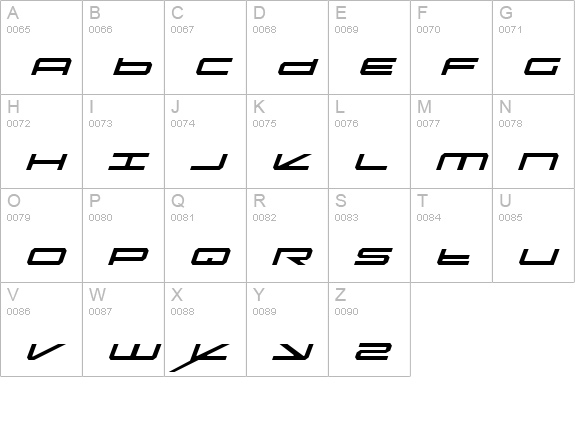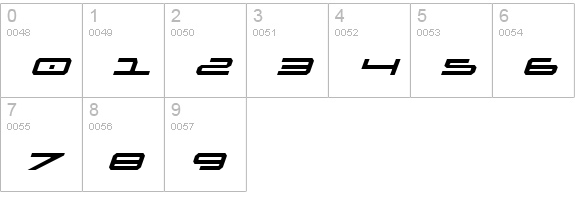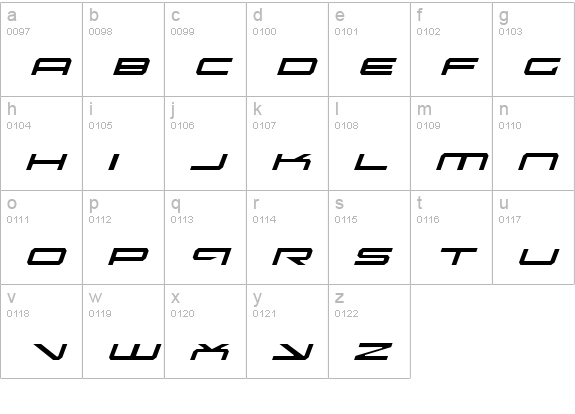
Oramac Light Italic is a refined, elegant, italic variant in the Oramac typeface family \xE2\x80\x94 well suited to elegant body text, refined sub-headings, and luxury branding.
Oramac Light Italic font is a sleek and elegant typeface that adds a touch of sophistication to any design project. With its delicate curves and subtle slant, this font exudes a sense of grace and refinement. Perfect for use in titles, headings, or body text, Oramac Light Italic offers a harmonious balance between readability and style. The best part? Oramac Light Italic font is available for free download at FontsMarket.com. Simply visit the website to access this beautiful typeface and elevate your designs with its timeless appeal. Whether you're creating a website, designing a logo, or working on a print project, Oramac Light Italic font is sure to make a lasting impression. Download it today and add a touch of sophistication to your next creative endeavor.